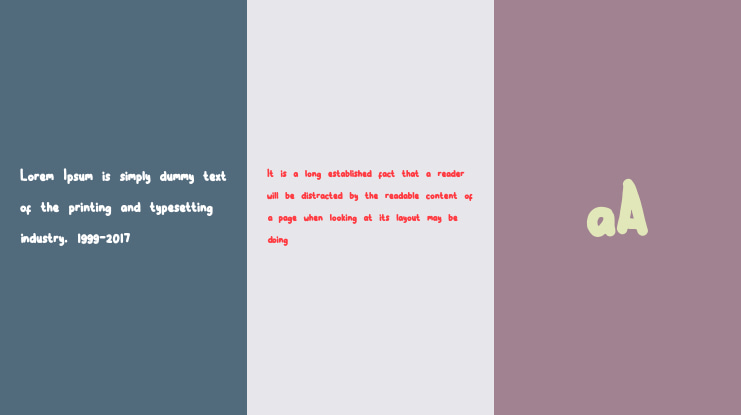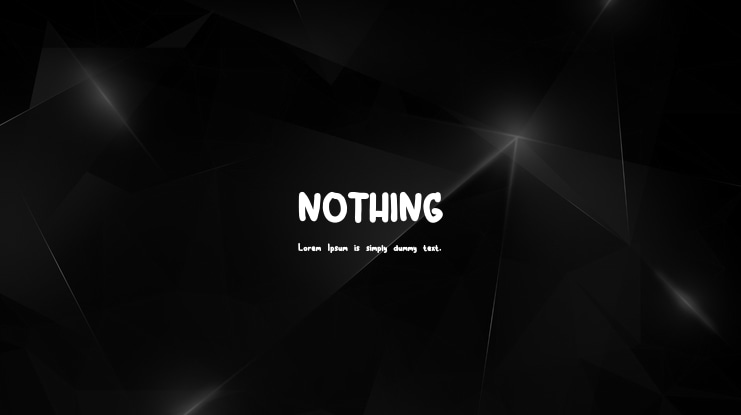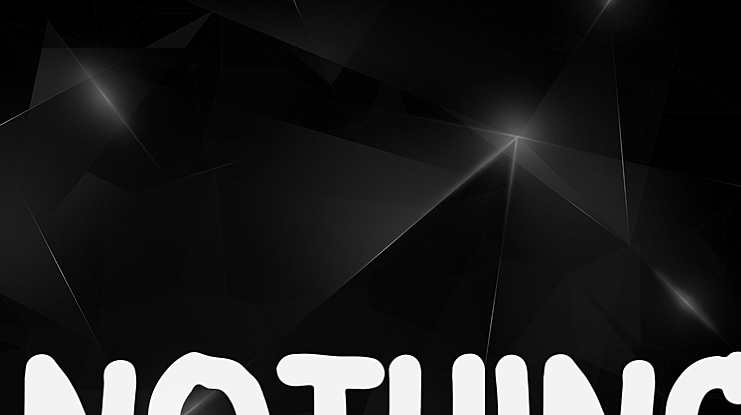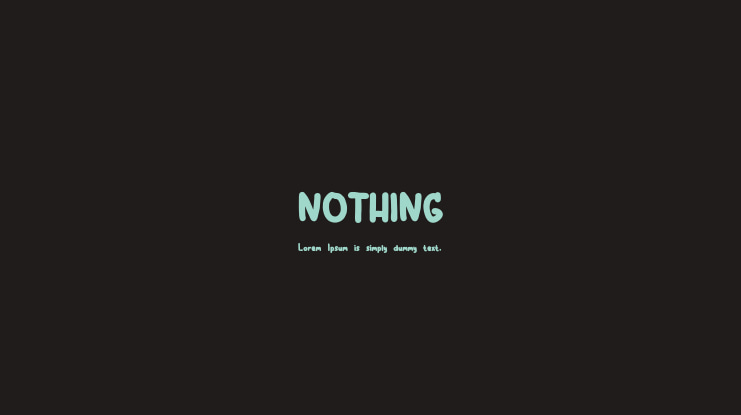
NOTHING Font
Nothing is a simple and thick lettered display font. Its friendly feel makes this font incredibly versatile, fitting a wide range of contexts. Add it to your creative ideas and notice how it makes them stand out!